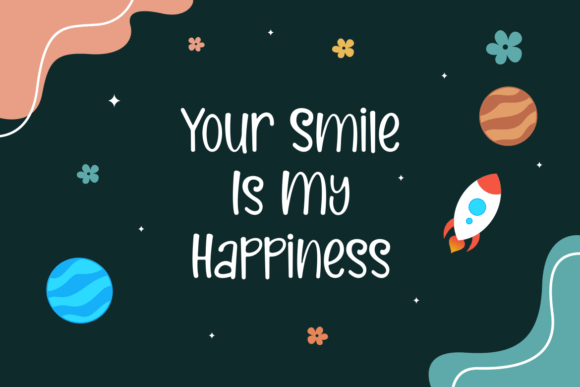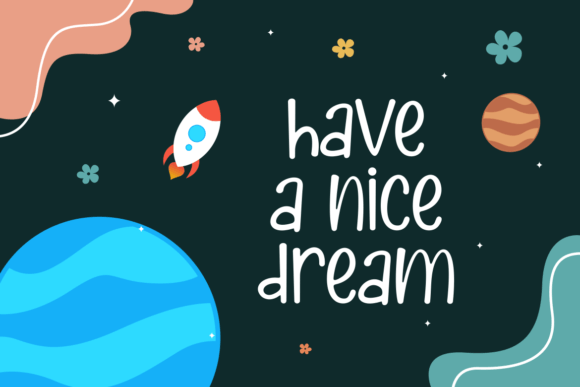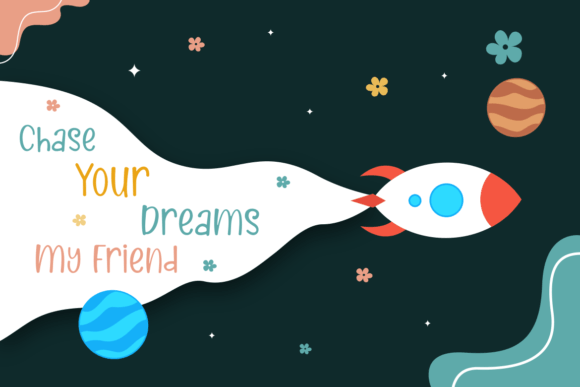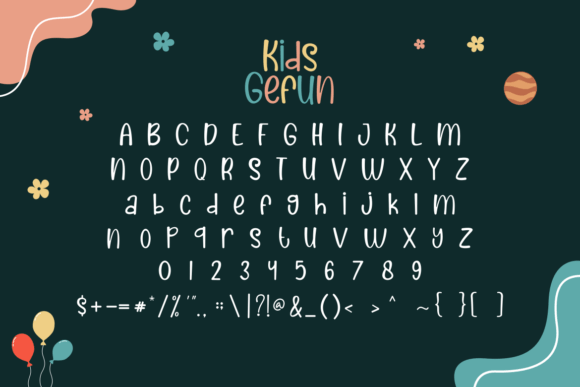
Introduction to Kids Gefun Font
Do you remember that moment when you first discovered a font that made your design come alive? For many designers, it’s a feeling that never gets old. As you browse through the endless options available, you stumble upon a font that speaks to you – its unique style, its bold personality, and its ability to elevate your creative project to the next level. This is exactly what happens when you encounter the Kids Gefun Font.
This modern, bold, and authentic display font is a game-changer for any branding project, from logos to t-shirt printing, and creative products. With its high-quality design, transparent background, and versatility, it’s no wonder why designers are going crazy about the Kids Gefun Font. Whether you’re working on a personal or commercial project, this design resource is sure to bring a touch of creativity and uniqueness to your work.
Key Features of Kids Gefun Font
- High-quality design: The Kids Gefun Font is designed to be visually appealing and engaging for children, making it perfect for creative projects.
- Transparent background: This font features a transparent background, allowing for easy layering and manipulation in design software.
- Large character set: The Kids Gefun Font includes a large character set, including uppercase and lowercase letters, numbers, and punctuation marks, making it suitable for a wide range of creative projects.
- High-resolution design: The font is designed at a high resolution (300 DPI), ensuring that it looks great in print and digital applications.
- Fun and playful design: The Kids Gefun Font is designed to be fun and playful, making it perfect for children’s books, educational materials, and other creative projects.
Honest Review: Kids Gefun Font
I recently stumbled upon the Kids Gefun Font and I must say it’s been a great addition to my design resources. The high quality of this font is immediately noticeable, with clean lines and a playful touch that’s perfect for any creative project.
The font features a transparent background, making it easy to layer and combine with other design elements. The character set is extensive, including a wide range of punctuation and special characters.
- ✨ High-quality design with a unique touch
- ✨ Transparent background for easy layering
- ✨ Extensive character set
- ⚠️ Limited font weights (only a few options available)
- ⚠️ Not suitable for complex text arrangements
How to Use Kids Gefun Font
The Kids Gefun Font is a high-quality design resource that offers a unique and playful style perfect for creative projects. This font features a transparent background, making it easy to use in various design applications.
To get the most out of the Kids Gefun Font, try combining it with other design elements, such as colorful graphics and patterns, to create a unique and eye-catching design.
The Kids Gefun Font is commonly used in children’s educational materials, party invitations, and other creative projects that require a playful and fun design style.